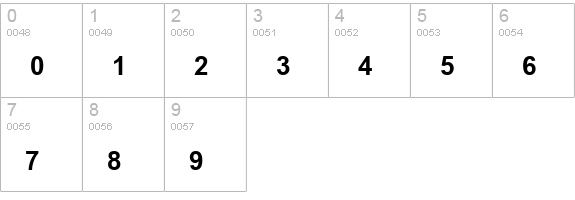
BrowalliaUPC Bold Font Details
BrowalliaUPC Bold is a strong, high-contrast variant in the BrowalliaUPC typeface family \xE2\x80\x94 well suited to headlines, attention-grabbing titles, and strong calls-to-action.
BrowalliaUPC Bold font is a stunning and elegant typeface that exudes sophistication and charm. Its bold and stylish design makes it perfect for a wide range of design projects, from invitations to logos to branding materials. The font's clean lines and classic appeal give it a timeless quality that is sure to make your text stand out. What makes BrowalliaUPC Bold font even more appealing is that it is available for free download at FontsMarket.com. This means you can easily access this beautiful font and use it in your projects without any cost. With its versatility and accessibility, BrowalliaUPC Bold font is a must-have for any designer looking to elevate their work with a touch of elegance and style.